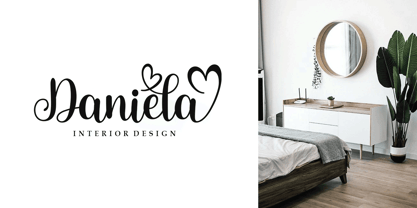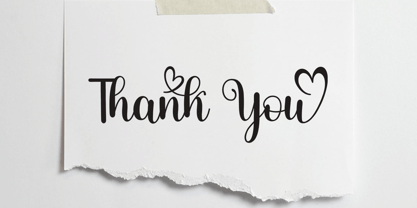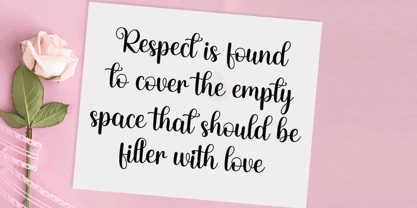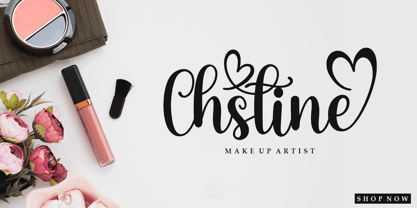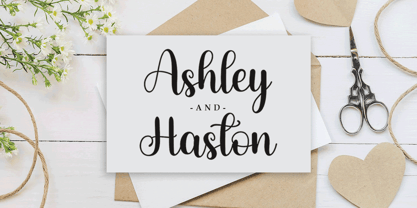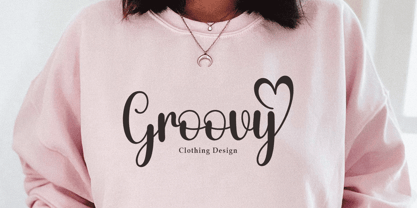
Hey Basley Script
Die Schriftfamilie Hey Basley Script wurde von Agus Pujiyono entworfen und von Good Design veröffentlicht. Hey Basley Script enthält 1 Stile. Mehr über diese Familie
Hey Basley Script is a stylish and incredibly elegant handwritten font. It looks stunning on wedding invitations, thank you cards, quotes, greeting cards, logos, business cards, and every other design that needs a handwritten touch.